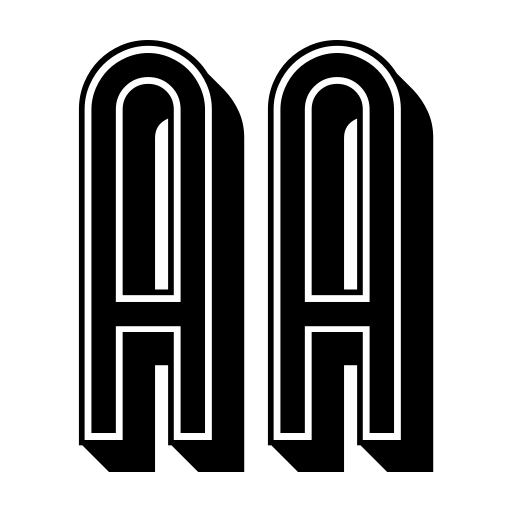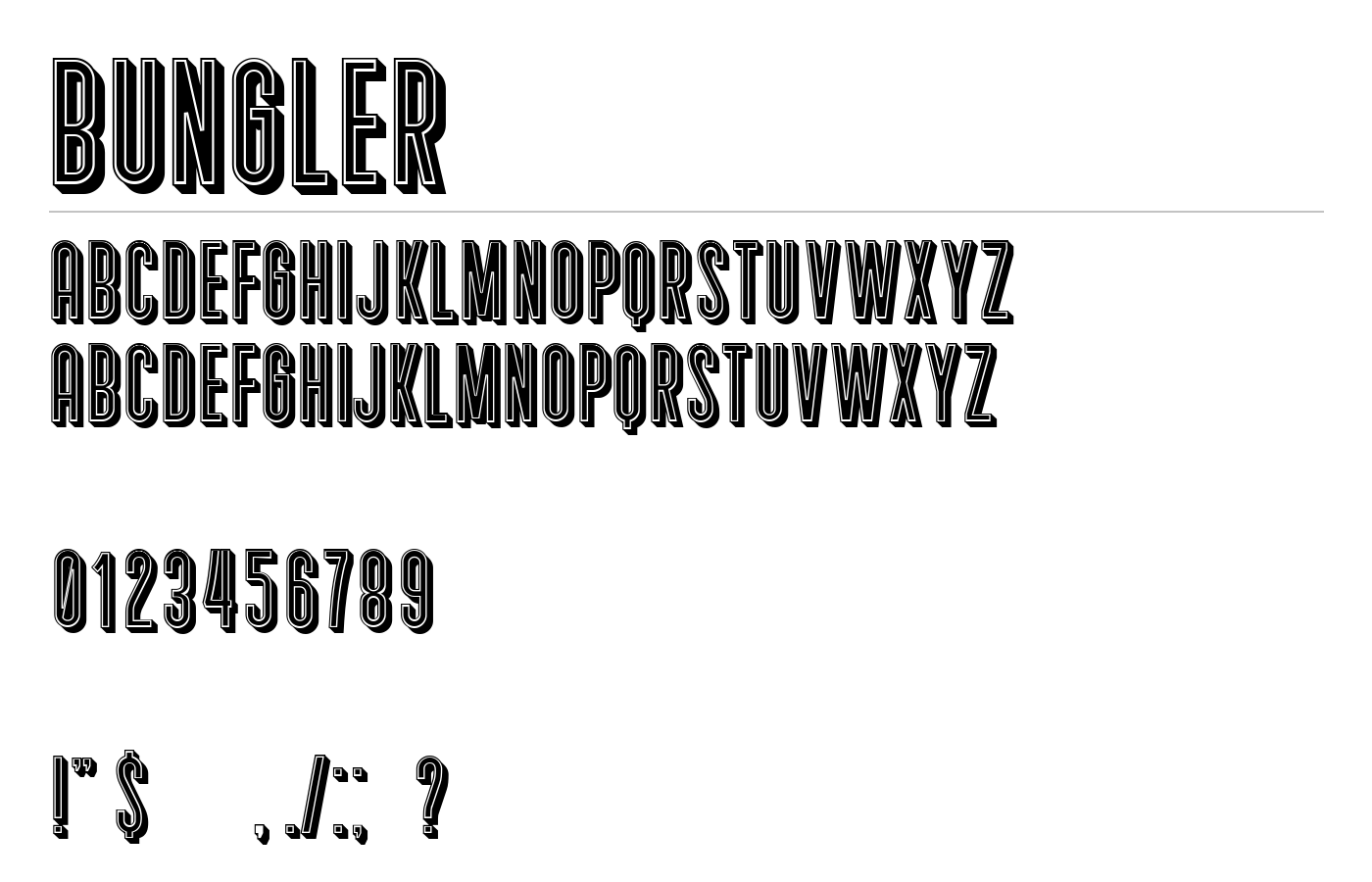
Bungler is a bold, condensed sans serif font with a distinctive layered outline effect that gives it a vintage yet playful character. Its tall, narrow letterforms and strong geometric structure make it ideal for eye-catching headlines, posters, and logos where a striking, retro-inspired look is desired. This font works particularly well for branding and design projects that aim to combine boldness with a touch of nostalgic charm.
Bungler Font
About Bungler Font